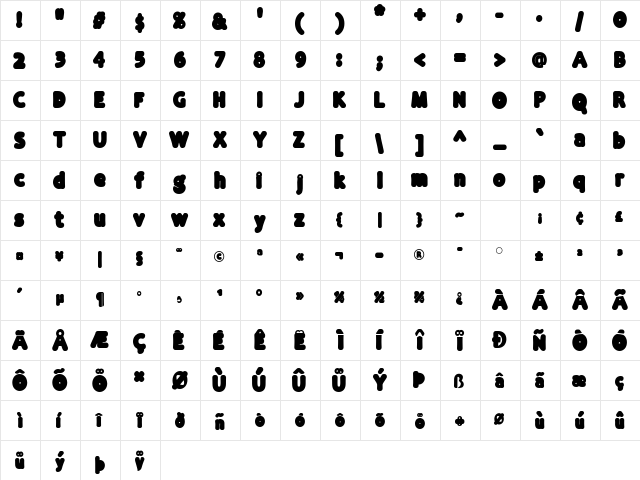
NewKids Regular
Design Context for NewKids Typeface
NewKids trades formality for fun, with bouncy, characterful letterforms that bring warmth and energy to any project.
Font Pairing: Pairs well with a rounded or humanist sans for body copy, maintaining the friendly tone without relying on NewKids to carry extended reading.
Pro Tip: Avoid using NewKids for long passages of text — it works best for headlines, labels, and short calls to action.